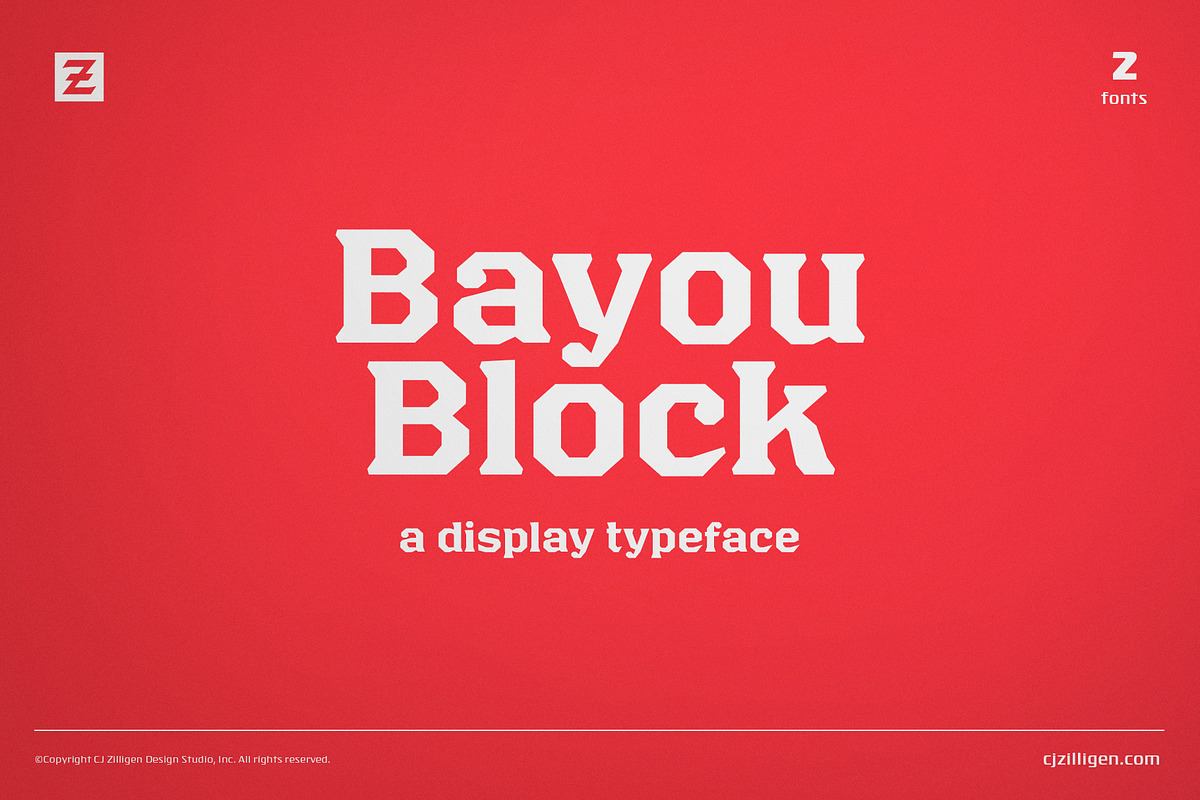
Bayou Block Font Free Download is a bold and gritty display typeface inspired by vintage signage and southern charm. With its thick, blocky letterforms and subtle texture, this font is perfect for posters, branding, sports logos, music covers, bar menus, and any design that needs a rugged, attention-grabbing presence.
Bayou Block delivers strong visual impact while keeping a touch of old-school character. Its sturdy build makes it ideal for headlines and logo designs where power and clarity matter most. Whether you're creating a rustic brand identity or a retro event flyer, this font gets the job done with style.